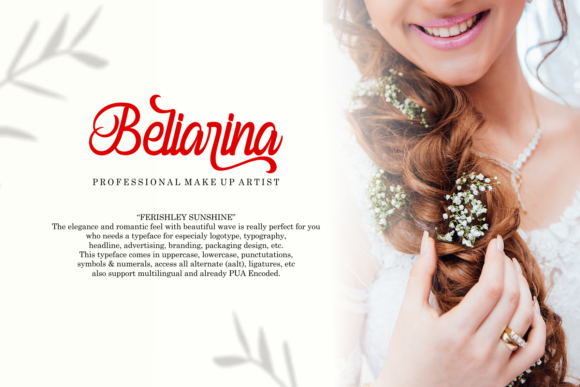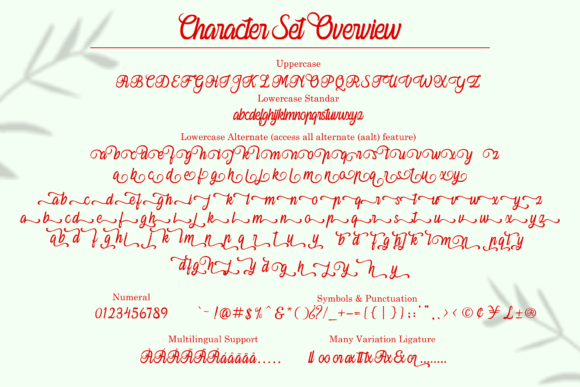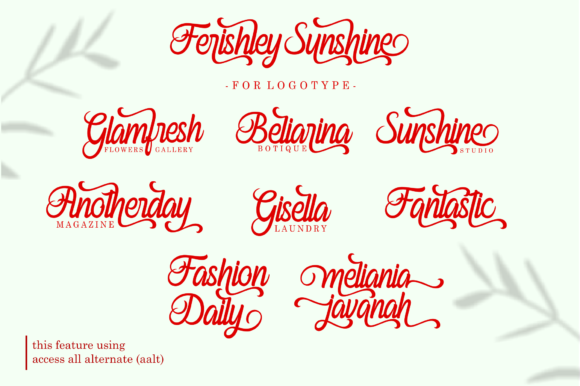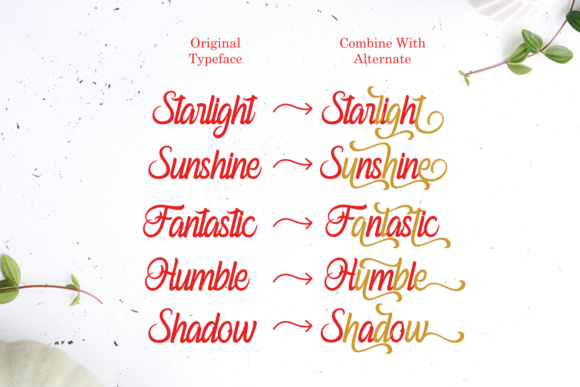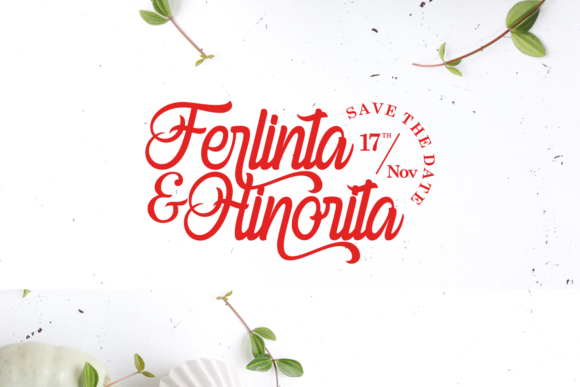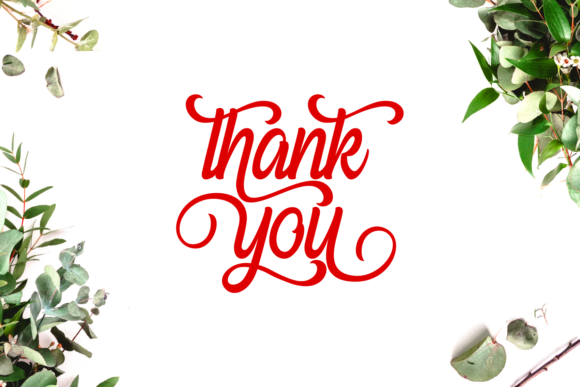
Ferishley Sunshine Font
About Ferishley Sunshine Font
Ferishley Sunshine is a script font with elegance and romantic feel. Perfect for anything that needs a personalized special touch.